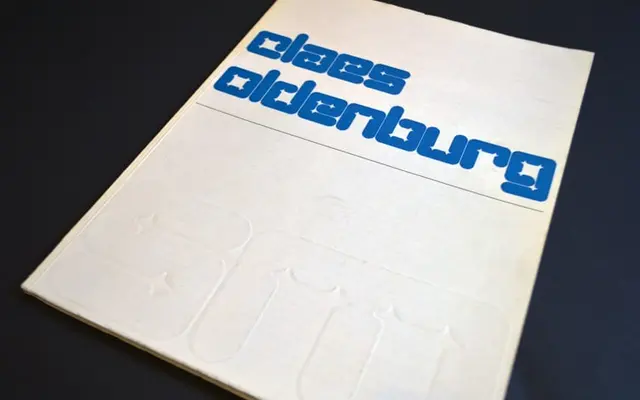
Architype Catalogue Soft Outline
The Foundry Types · Wim Crouwel · 1996
A digitised outline version of the softly inflated letterforms Wim Crouwel hand-cut in pink paper for the Stedelijk Museum's 1970 Claes Oldenburg exhibition catalogue.
Originally conceived to evoke the tactile quality of Oldenburg's soft sculptures, the alphabet was cut by Crouwel from pink paper and later digitised by The Foundry following a 1996 collaboration agreement with the designer. The letterforms sit on a strict grid yet carry a rounded, padded character entirely at odds with Crouwel's usual geometric precision, making this one of the more unexpected pieces in the Architype collection. Licenced exclusively through Monotype and available via Fonts.com, FontShop, Linotype and MyFonts.
A digitised revival of Crouwel's grid-based, softly padded letterforms originally cut by hand for a 1970 Stedelijk exhibition catalogue; its rounded, inflated forms place it firmly in the display/experimental category.